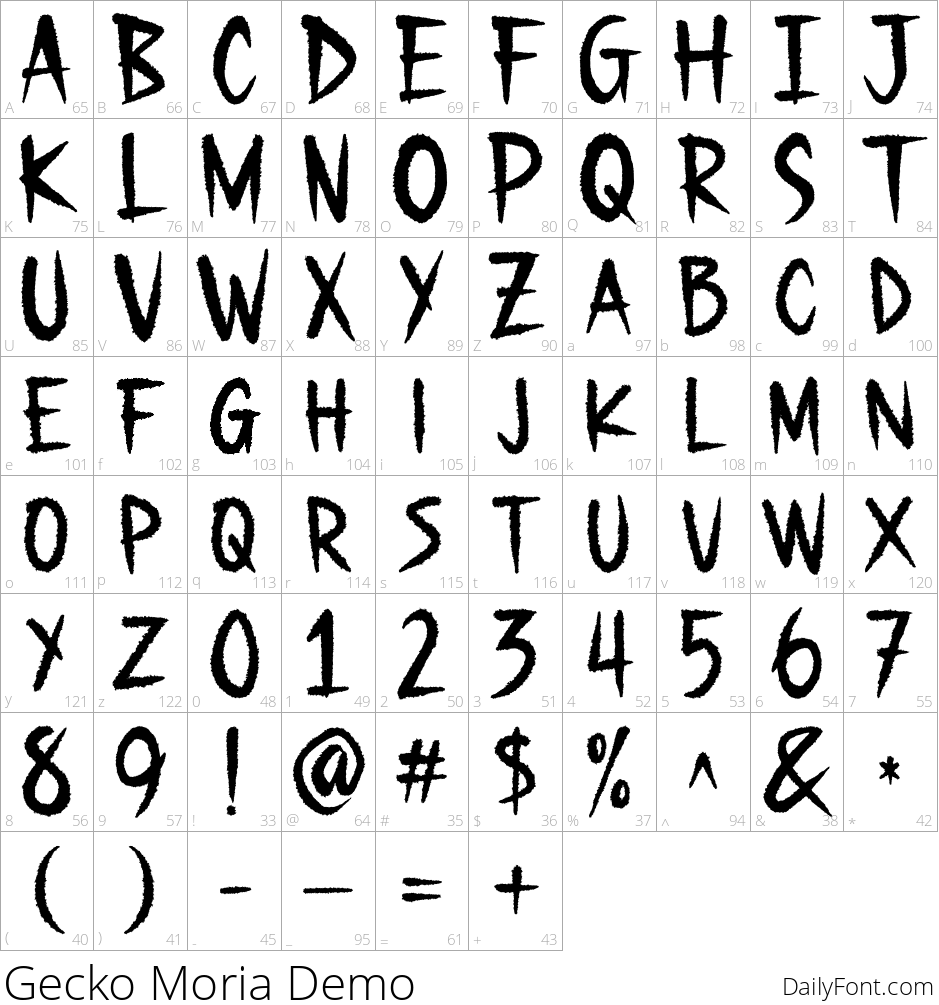
Gecko Moria
Introducing Gecko Moria, a captivating horror hand-drawn font designed to add an eerie and artistic flair to your projects. With its unique, bold strokes and intricate details, Gecko Moria is perfect for creating eye-catching titles and logos that demand attention. Whether you're working on product packaging, magazine layouts, or social media posts, this font will help you stand out in a crowded digital landscape.
The versatility of Gecko Moria makes it an ideal choice for branding projects that require a touch of the unconventional. Its expressive design allows you to convey mood and emotion, making it perfect for Halloween-themed graphics, horror film promotions, or any design that seeks to evoke a sense of intrigue and suspense. Let your creativity flow with Gecko Moria and transform your visual concepts into compelling narratives that will engage your audience and enhance your overall brand identity.